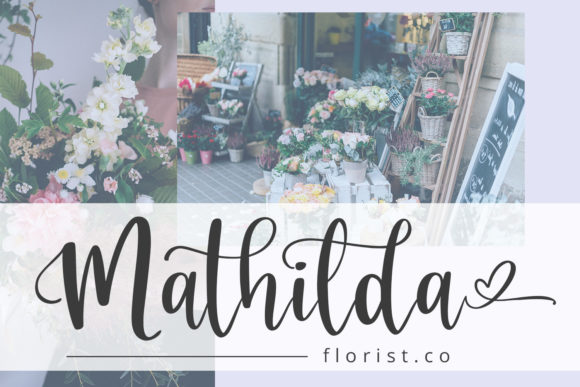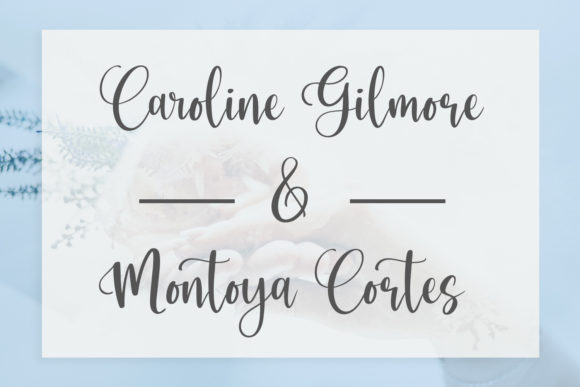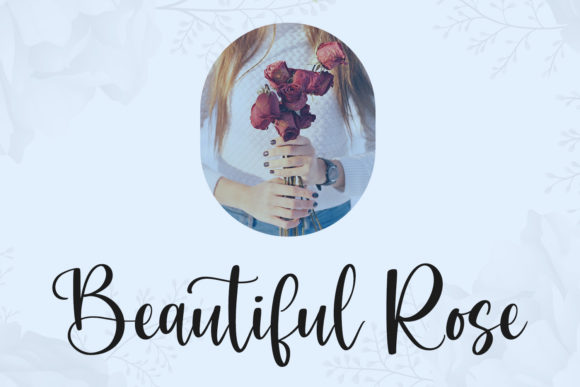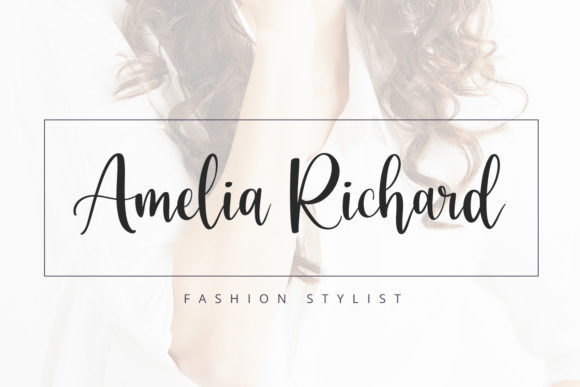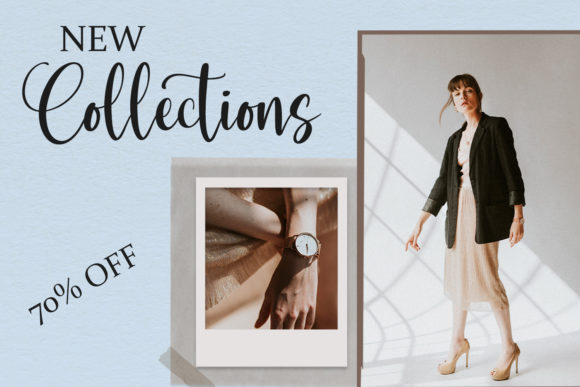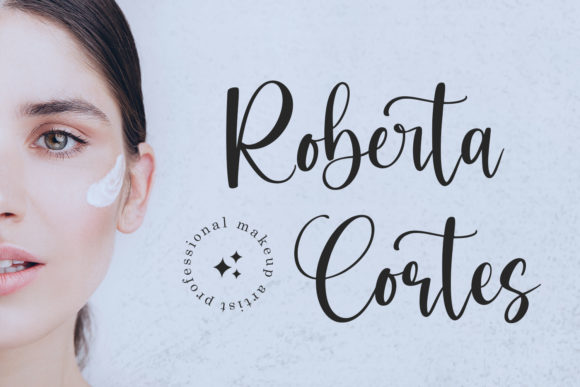
The Perfect Blend of Whimsy and Elegance: Introducing Berthalisa Font
Have you ever been rummaging through a vintage bookstore, running your fingers over the spines of worn novels, and stumbled upon a handwritten love letter from the 1920s? The feeling of discovering a piece of history, a piece of someone’s heart, is unmatched. It’s in those moments that we’re reminded of the beauty of handwritten typography.
For designers looking to add a touch of romance and charm to their projects, Berthalisa Font is the perfect tool. This delicate handwritten font embodies the essence of elegance, with each character exuding a sense of loveliness. With its PUA encoding, designers can easily access all of the glyphs and swashes, making it a valuable addition to any design arsenal. Whether you’re creating a wedding invitation or a vintage-inspired advertisement, Berthalisa Font is sure to bring a touch of sophistication and whimsy to your work.
- Unique Characteristics: A modern, elegant script font with a touch of whimsy, ideal for creative and artistic applications.
Designer Review: Berthalisa Font
Overall, I was excited to dive into the Berthalisa font, but I have mixed feelings about its capabilities.
- ✨ The font’s unique blend of modern and vintage elements is visually appealing and could add a lot of character to the right project.
- ✨ Berthalisa has a wide range of weights and styles, making it suitable for a variety of design applications, from body text to headlines.
- ✨ The font is relatively easy to read, with clear letterforms and a consistent x-height.
Limitsations:
- ⚠️ The font’s irregularities can be distracting in larger blocks of text, which may limit its use for lengthy copy.
- ⚠️ Berthalisa’s unique style may not be to everyone’s taste, which could make it less versatile in certain design contexts.
The Berthalisa font has potential, but its limitations may make it less suitable for certain projects. I would recommend it for smaller-scale designs or projects where its unique character can shine.
Tips for Getting the Most Out of Berthalisa Font
Use Berthalisa Font to add a touch of elegance and sophistication to your designs
Pair it with a bold font for a striking contrast
Experiment with different font sizes and colors to create visual interest
Alternatives to Berthalisa Font
Lato is a modern sans-serif font designed by Łukasz Dziedzic. It’s ideal for use in digital products, such as websites, mobile apps, and software. Lato is clean, elegant, and highly legible, making it a great choice for body text. Compared to Berthalisa Font, Lato has a more modern and minimalist feel, but still maintains a high level of readability.
Montserrat is a geometric sans-serif font designed by Julieta Ulanovsky. It’s inspired by the urban typography of Buenos Aires and is perfect for use in digital products that require a strong, modern feel. Montserrat is highly versatile and can be used for both body text and headings. Compared to Berthalisa Font, Montserrat has a more geometric and edgy feel, making it ideal for tech and startup brands.
Open Sans is a clean and modern sans-serif font designed by Steve Matteson. It’s highly legible and works well in a variety of contexts, from digital products to print materials. Open Sans is a great choice for use in body text and is highly adaptable to different font sizes and styles. Compared to Berthalisa Font, Open Sans has a more neutral and subtle feel, making it ideal for use in a wide range of industries and applications.
Inter is a modern sans-serif font designed by Rasmus Andersson. It’s highly legible and works well in both digital and print contexts. Inter is a great choice for use in body text and is highly adaptable to different font sizes and styles. Compared to Berthalisa Font, Inter has a more modern and sophisticated feel, making it ideal for use in luxury and high
What is the recommended font size and line height for Berthalisa?
The recommended font size for Berthalisa is between 10pt and 24pt, depending on the application and intended use. For body text, a line height of 1.2 to 1.5 times the font size is recommended, while for headlines and titles, a line height of 1.5 to 2 times the font size is suggested.